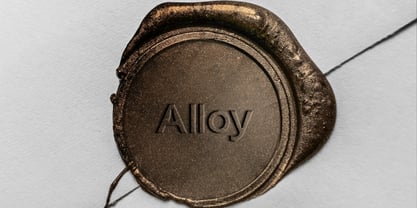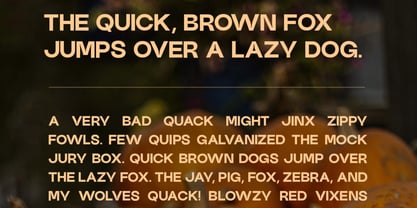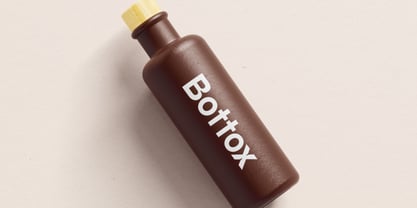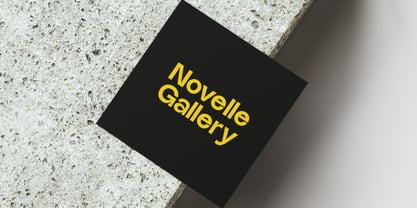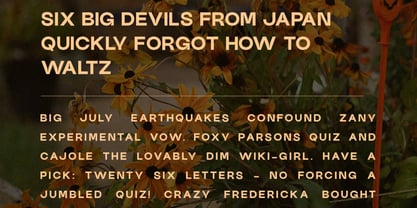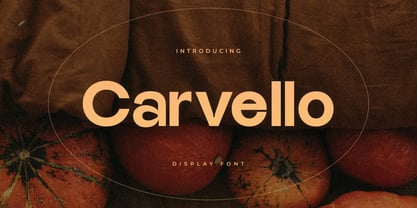
Carvello
The Carvello Font Family was designed by Ancy George and published by Webhance. Carvello contains 2 styles and family package options. More about this family
Carvello is a modern display typeface inspired by the warmth of autumn nights and the charm of pumpkin carving. It combines bold shapes, smooth curves, and balanced proportions to create a clean and elegant visual style. Carvello is perfect for posters, packaging, social media graphics, headlines, and seasonal branding. The design reflects the cozy glow of candlelight and the mood of fall evenings. It brings a mix of character and sophistication to both print and digital projects. With its confident yet refined appearance, Carvello works beautifully for creative, minimal, and festive designs. Carvello includes extended Latin support and covers a wide range of languages, making it suitable for global audiences. Whether you are designing a Halloween campaign, a modern logo, or a bold magazine headline, Carvello adds clarity, warmth, and a distinctive seasonal personality to your work.